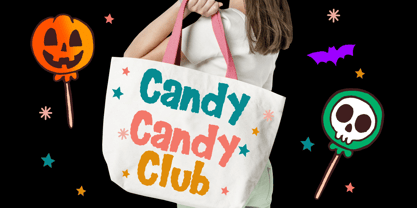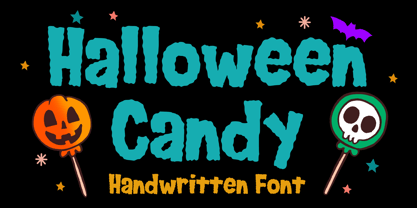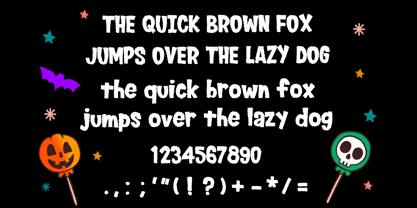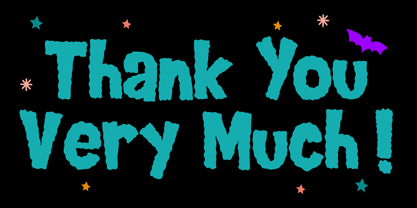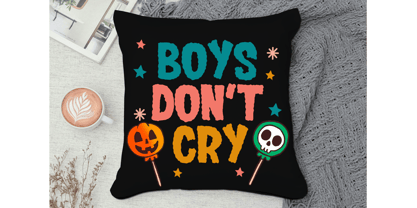
Halloween Candy
Die Schriftfamilie Halloween Candy wurde von Gabriel Valentinus entworfen und von Mvmet veröffentlicht. Halloween Candy enthält 1 Stile. Mehr über diese Familie
Halloween Candy is an playful and fun handdrawn font with cool uneven edges that will add a super cool touch to your designs! It will be perfect for your horror and Halloween-themed needs! You can use it for anything ranging from merchandise like t-shirts and clothing, for your scary book designs, Halloween party needs, greeting cards, stickers, posters, banners, or anything that needs a festive horror or magical touch.
Designer: Gabriel Valentinus
Foundry: Mvmet
Mvmet is an Indonesia-based font studio which began making fonts in early 2020. Mvmet strives to make fonts fun and accessible for both the average computer user and professional designers, with original experimental fonts and affordable trend-setting commercial fonts. Mvmet also creates custom fonts for companies who want exclusive rights and a specific design for a typeface. Clients who have used Mvmet’s custom font services include some company in Indonesia and abroad.